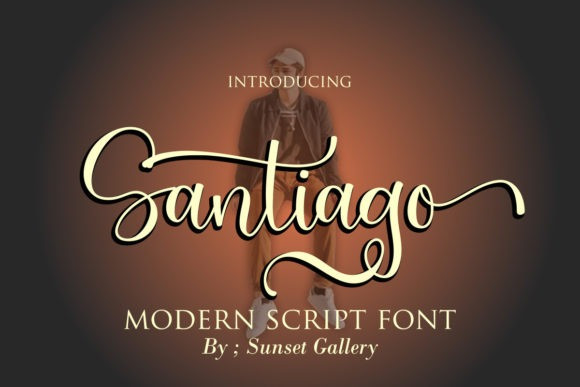
Santiago Font
Santiago Script Font feels equally charming and elegant. It looks stunning on wedding invitations, thank you cards, quotes, greeting cards, logos, business cards and every other design which needs a handwritten touch.